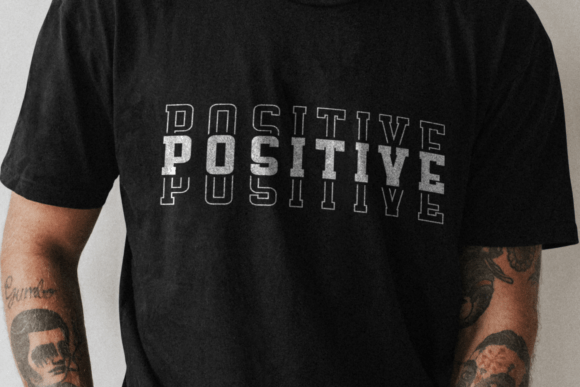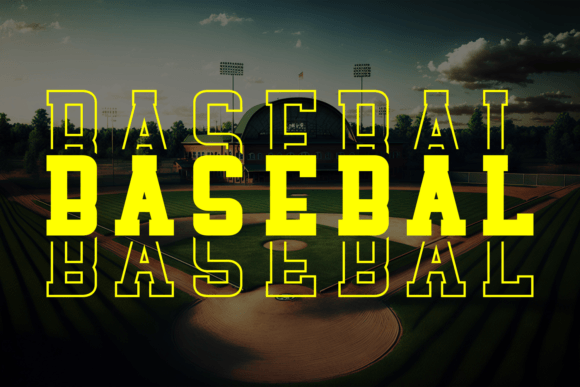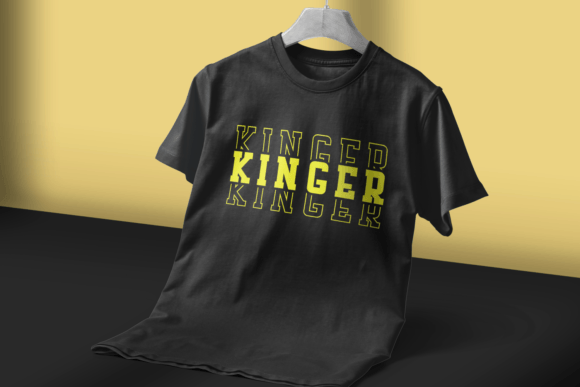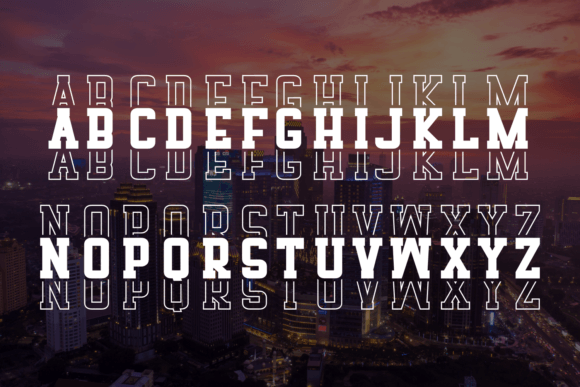
Citys Font
Citys is a stacked slab serif font that brings a touch of urban sophistication to your design. Its bold, block-like letters create a modern and structured look, making it ideal for headlines, logos, and eye-catching graphics. Citys stands tall with a clean and contemporary style, making your text stand out in a sleek and impactful way. Elevate your designs with Citys for a polished and trendy aesthetic.